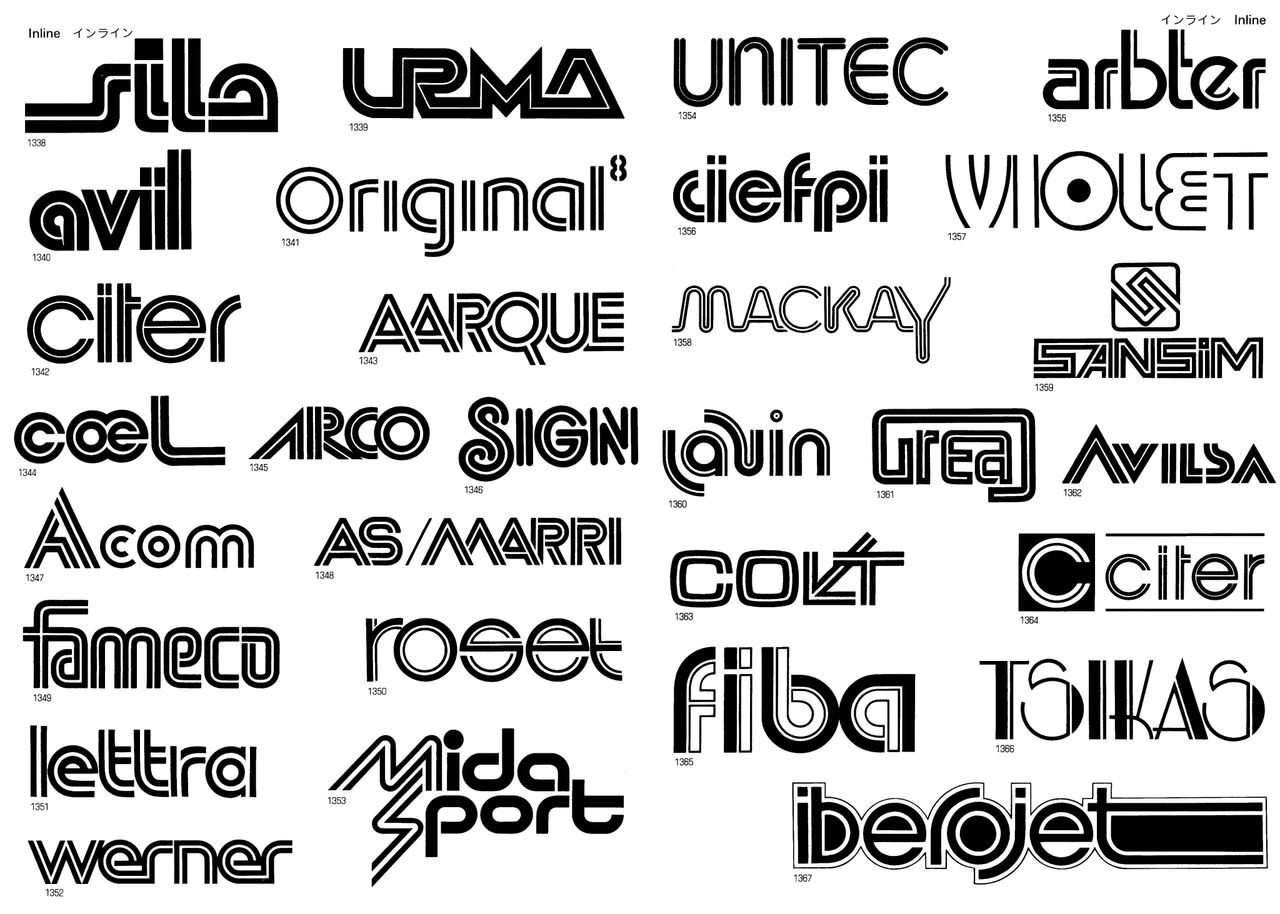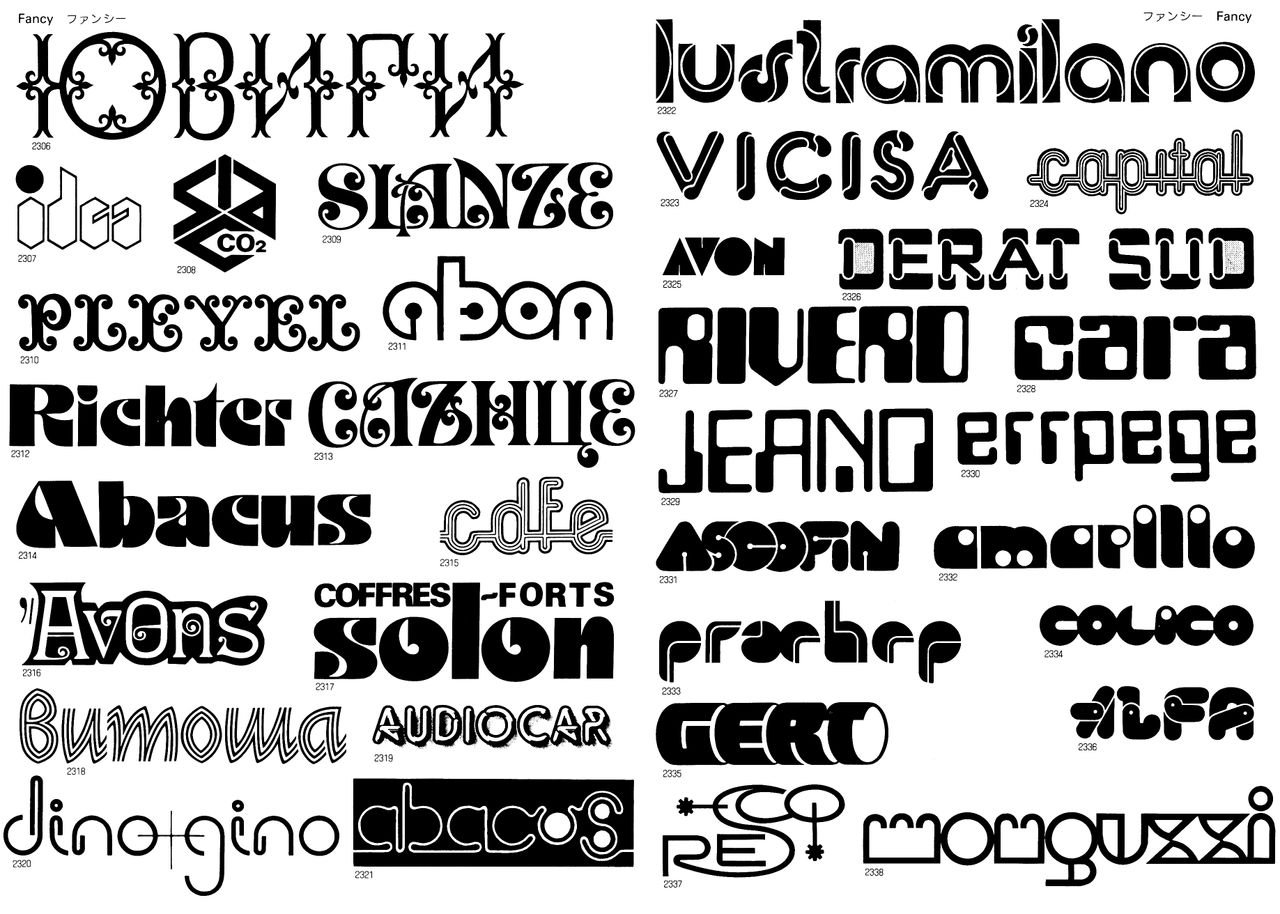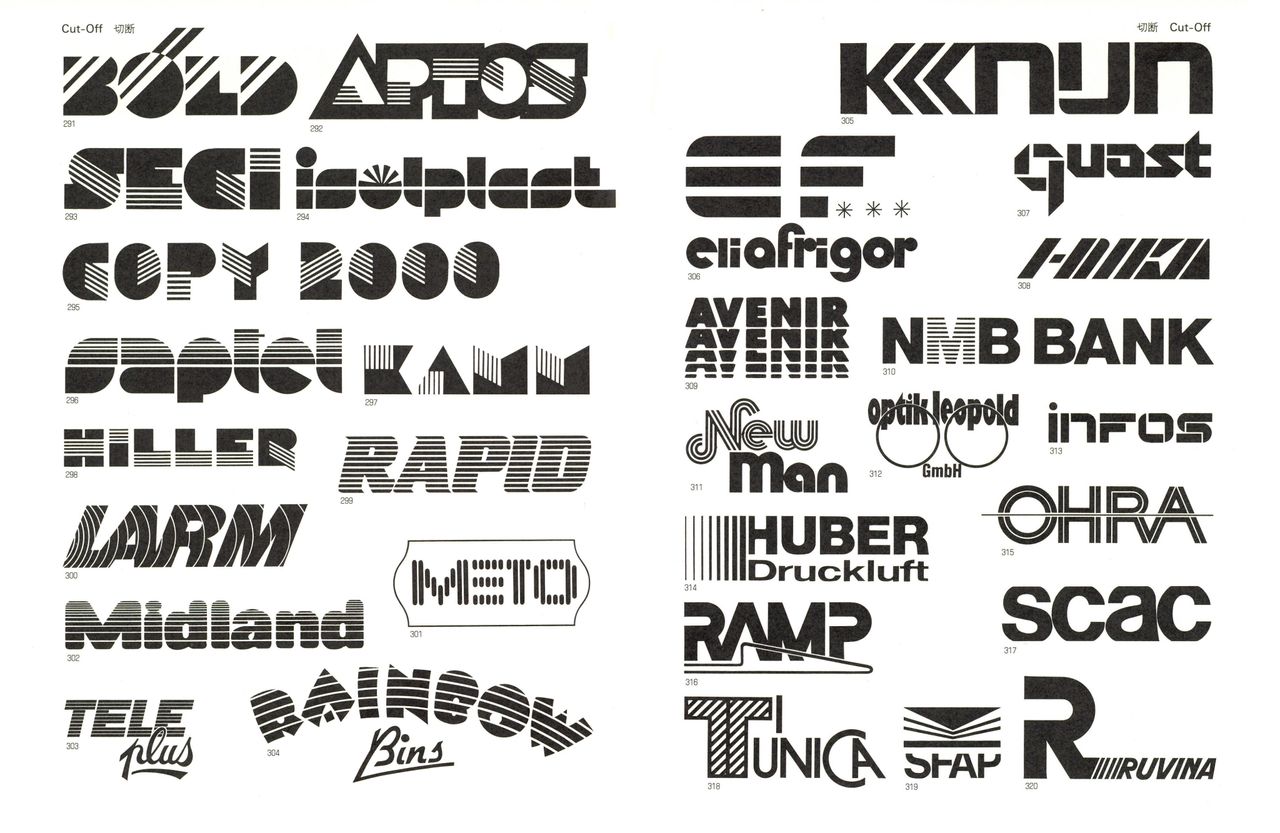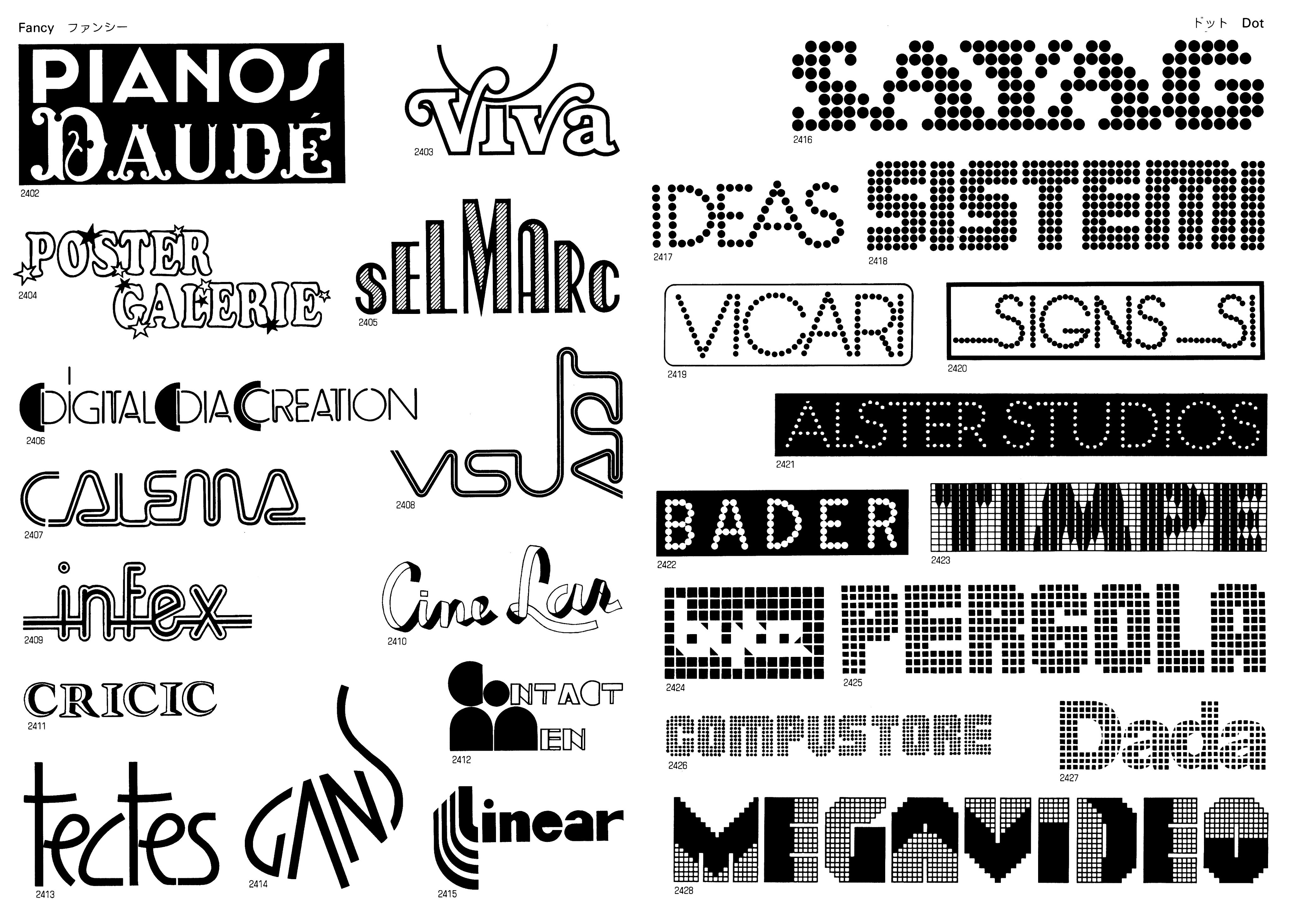
These 1980s fonts are a typography nerd's dream
No room for minimalism here.
While Twitter might be a somewhat controversial topic right now thanks to a certain new CEO, it can still offer up delights from the worlds of art and design. And this archive of 1980s fonts is exactly that.
Twitter account @y2k_aesthetic has shared some scans from Logotypes of the World, a book by Yasaburo Kuwayama, published in 1987, featuring dozens of retro treats. And it's easy to see how they've influenced later font styles. (Looking for more inspiration? Check out the best free fonts.)
Even in these three pages, there are some familiar fonts on display, including Moore Computer which was all the rage in the 70s and 80s. "This is so cool, it reminds me of Cyberpunk 2020 and its retro-futuristic fonts," one Twitter user comments, while another typography fan adds, "This is like diamonds to the eyes."